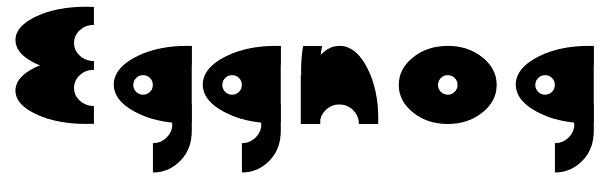
Eggnog
Eggnog is a slightly heavy typeface that renders very well at even very small typesizes and looks sharp in large headlines. This typeface is egg-ish in shape and we've included a half-dozen eggs in case you're inspired to have some eggnog for...